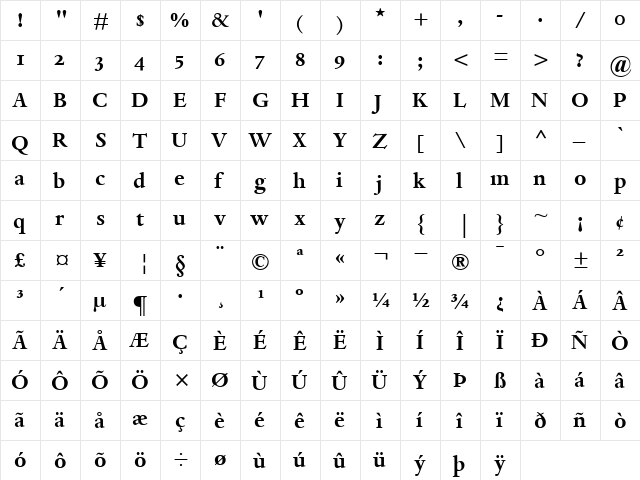
DanteMTOldstyleFigures Bold Font Preview
DanteMTOldstyleFigures Bold
Design Context for DanteMTOldstyleFigures Typeface
DanteMTOldstyleFigures brings classic typographic sensibility to the table — its serifs and measured letterforms reflect centuries of print heritage. The heavy weight commands attention and anchors typographic hierarchies.
Pro Tip: Use DanteMTOldstyleFigures for editorial body copy and considered headline work. Pair with a neutral sans for UI elements or captions to create a classic hierarchy.